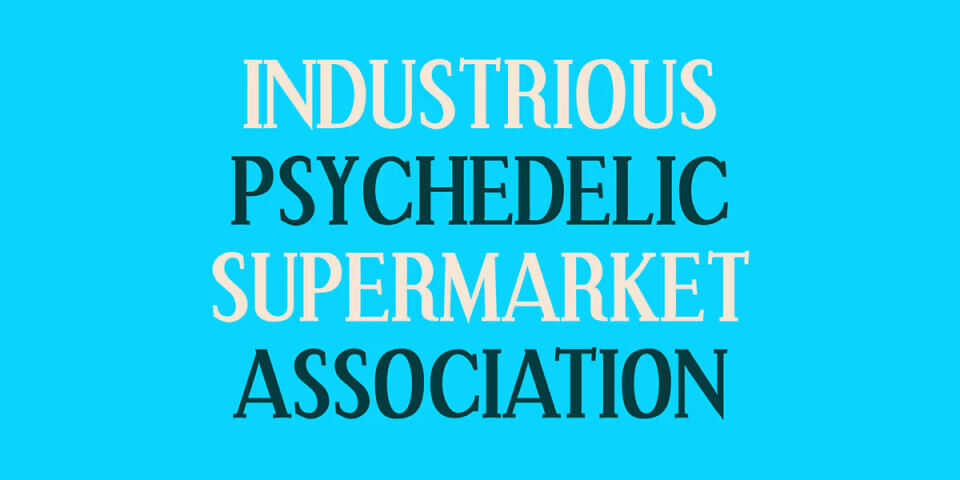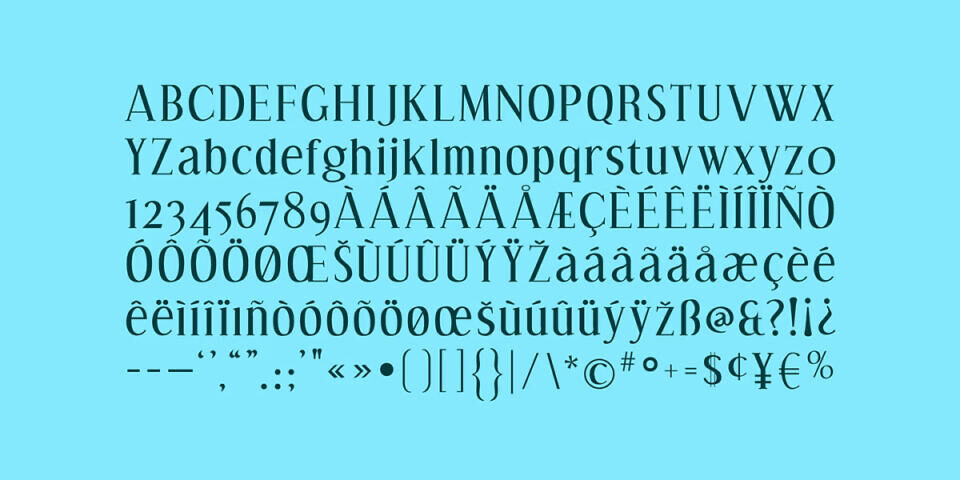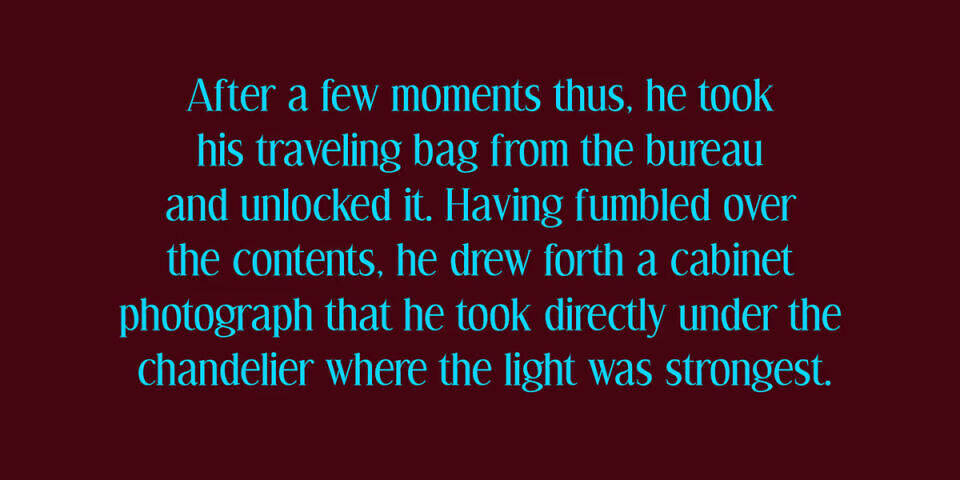
Effloresce is a rustic, condensed display typeface with a homey feel. Its handcrafted, rural flavor will express your message in a relaxed, welcoming tone. Effloresce comes in Regular, Italic, Bold, Bold-Italic, and Antique variants.